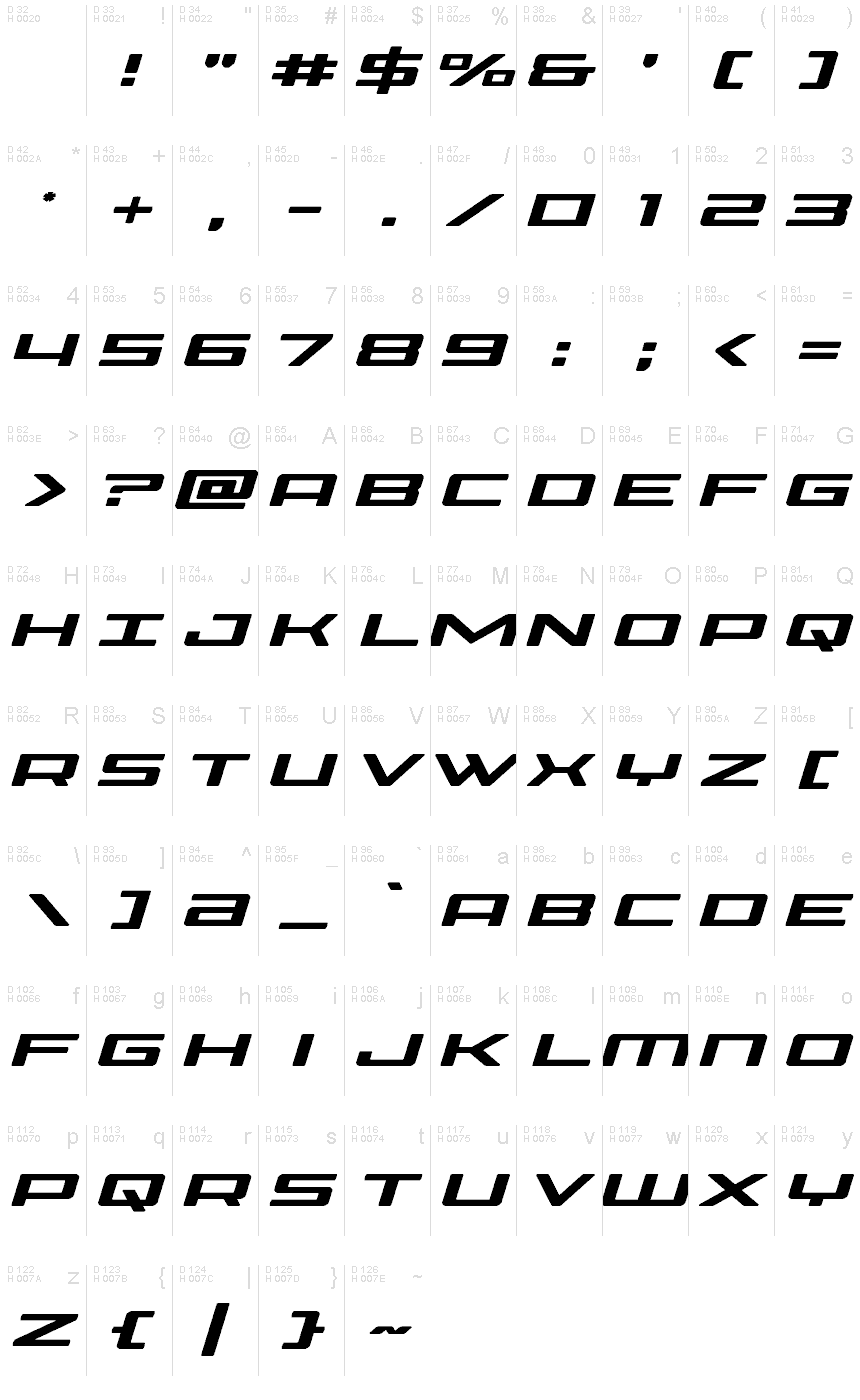
Phoenicia Expanded Italic
Phoenicia Expanded Italic is a captivating display font that exudes a distinct techno flair. Designed by Daniel Zadorozny, this robust typeface boasts an expanded width, lending it a striking, assertive presence. The italic slant and angular details create a sense of forward momentum, making it an ideal choice for headings, logos, and branding applications that demand a bold, contemporary aesthetic.
Its versatility extends to a wide range of design contexts, from digital interfaces to editorial layouts, where it can seamlessly integrate with both minimalist and high-energy visual styles.